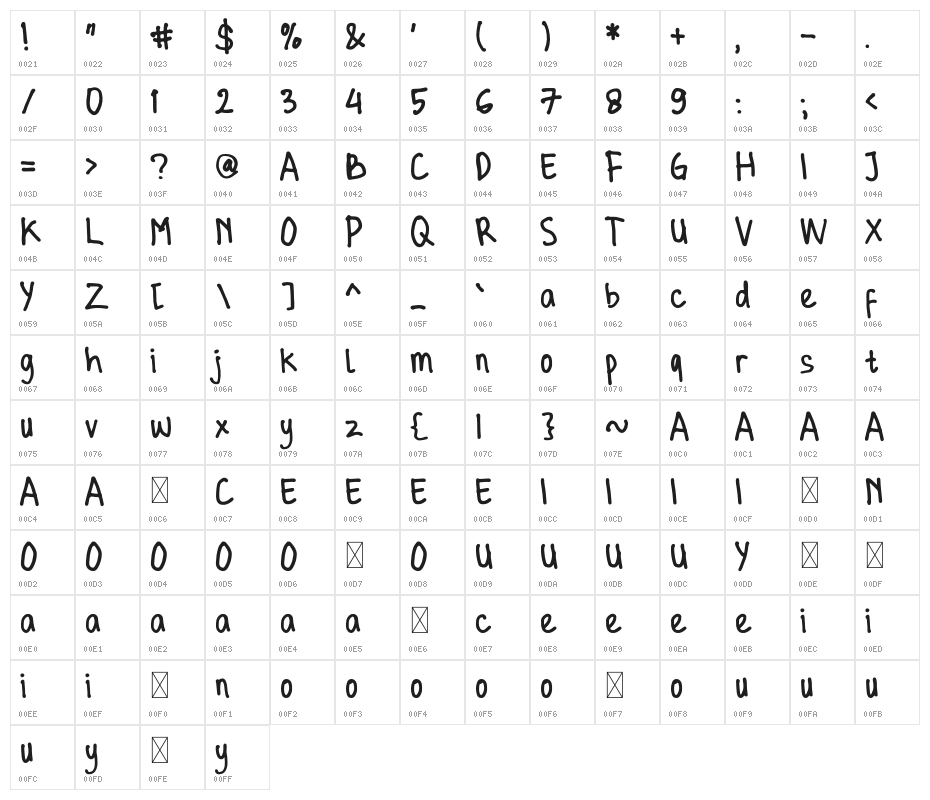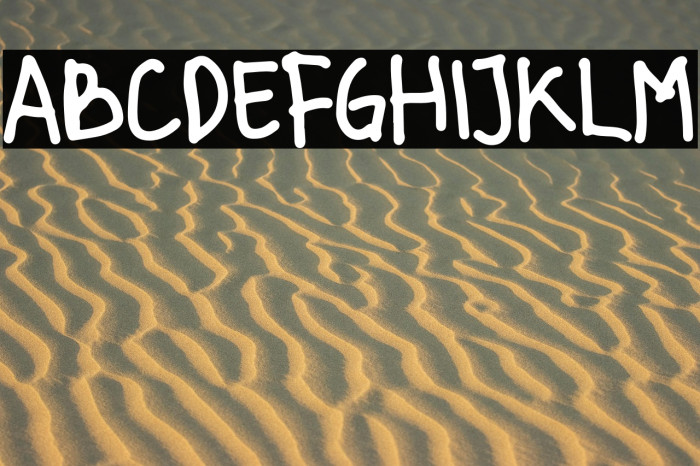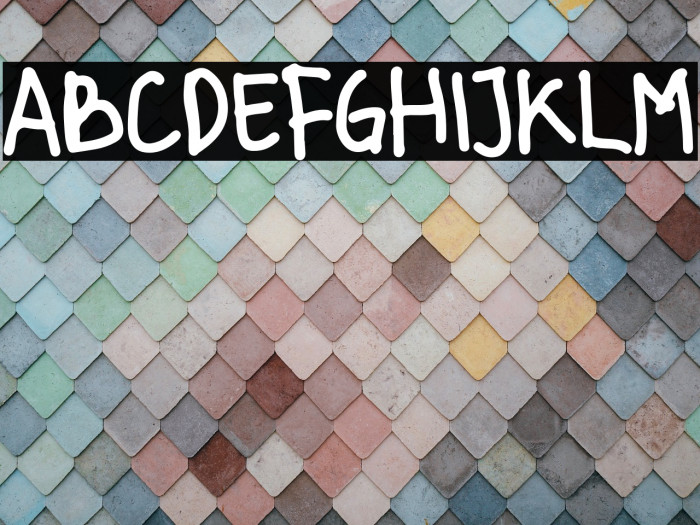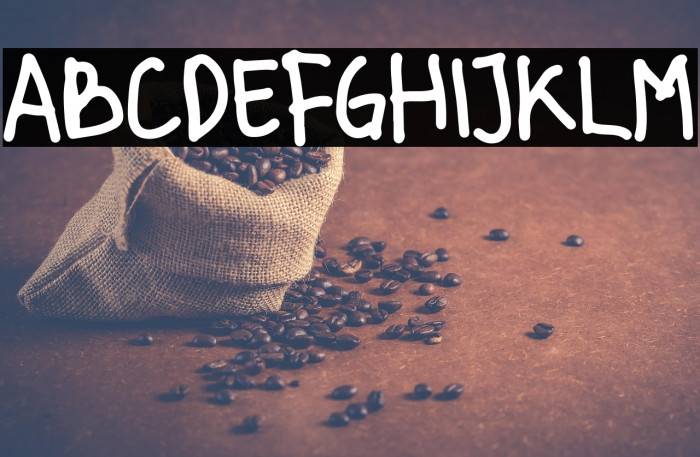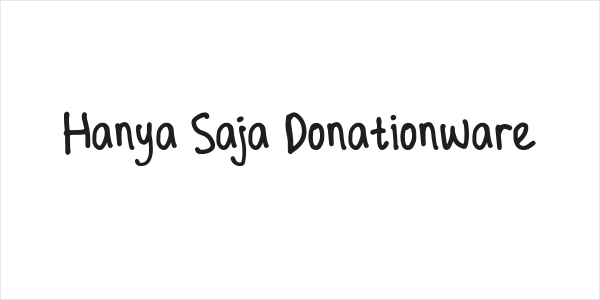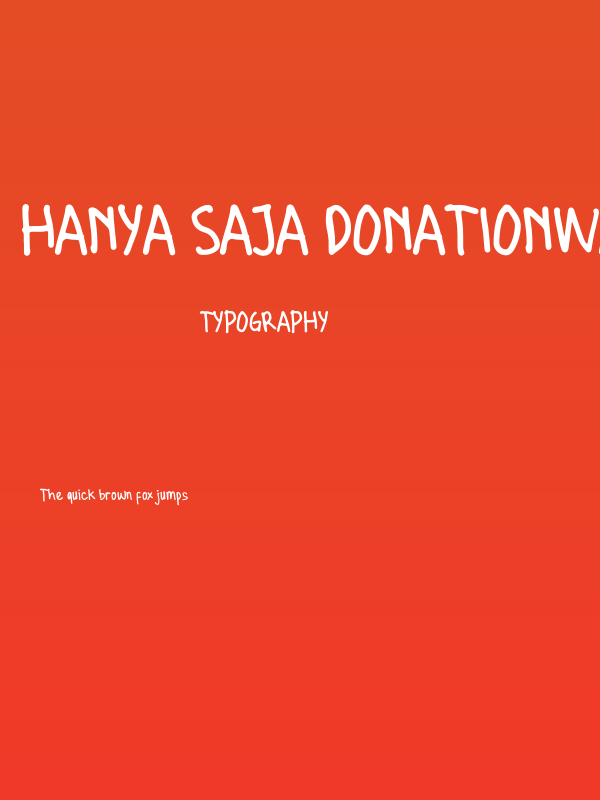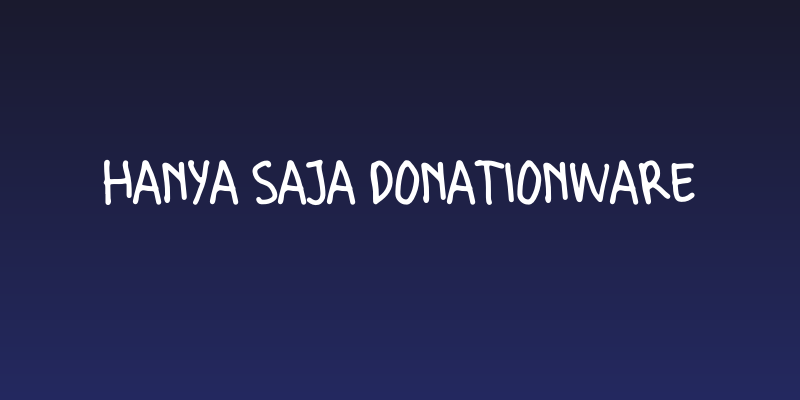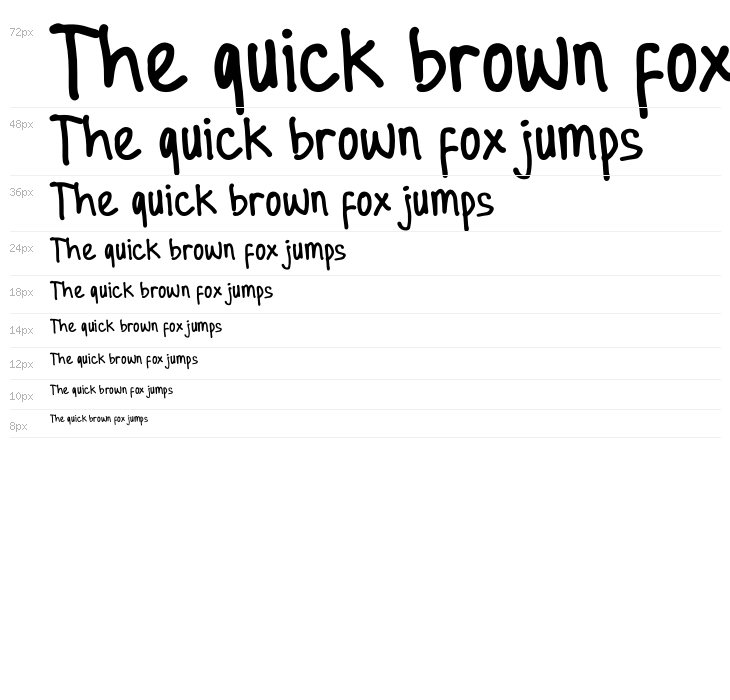
Hanya Saja Donationware Font
Hanya Saja Donationware Description
This font features a playful and casual handwritten style, characterized by its bold and slightly irregular strokes. The letters have a natural flow, giving them an approachable and friendly appearance. The uppercase and lowercase letters maintain a consistent style, with rounded edges and a slightly uneven baseline, adding to the hand-drawn aesthetic. The numerals and special characters follow the same design principles, ensuring a cohesive look throughout. This font is ideal for projects that require a personal touch or a relaxed vibe.
| Use Case | Headlines, Informal text, Branding |
| Proposed Projects | Ideal for greeting cards, children's books, casual branding, and social media graphics. |